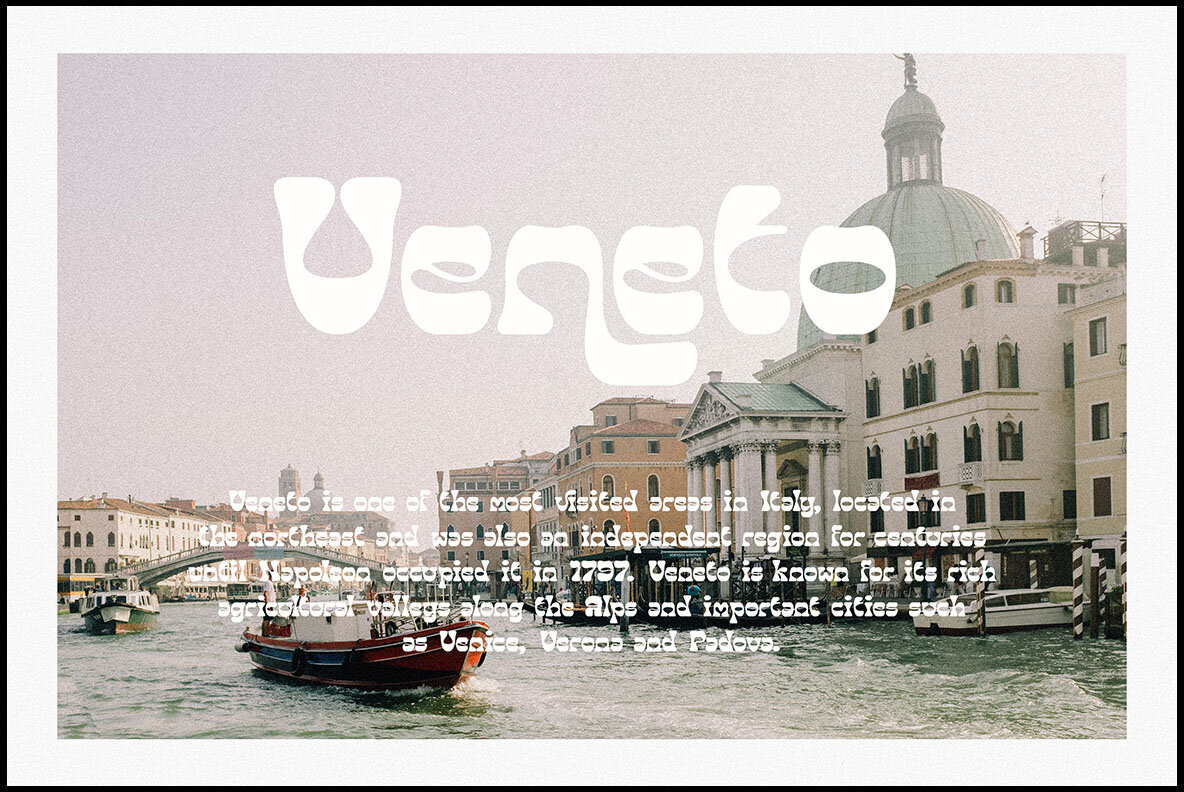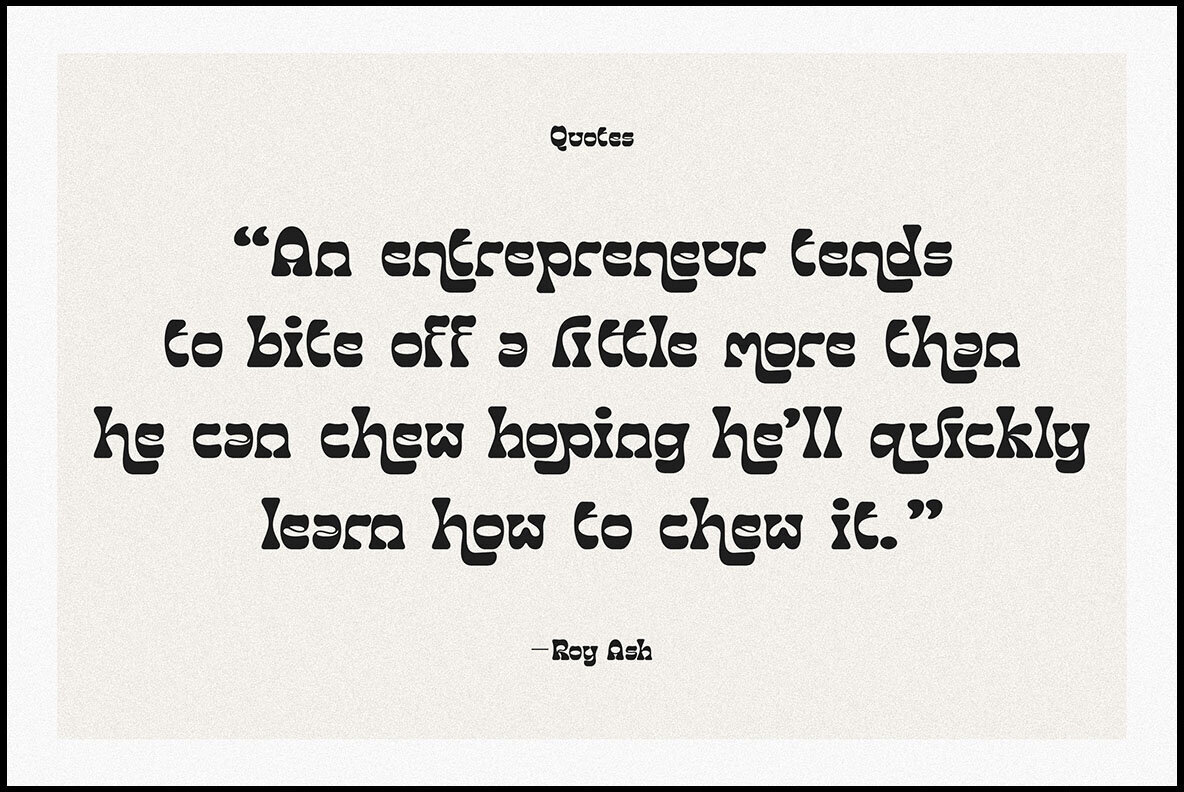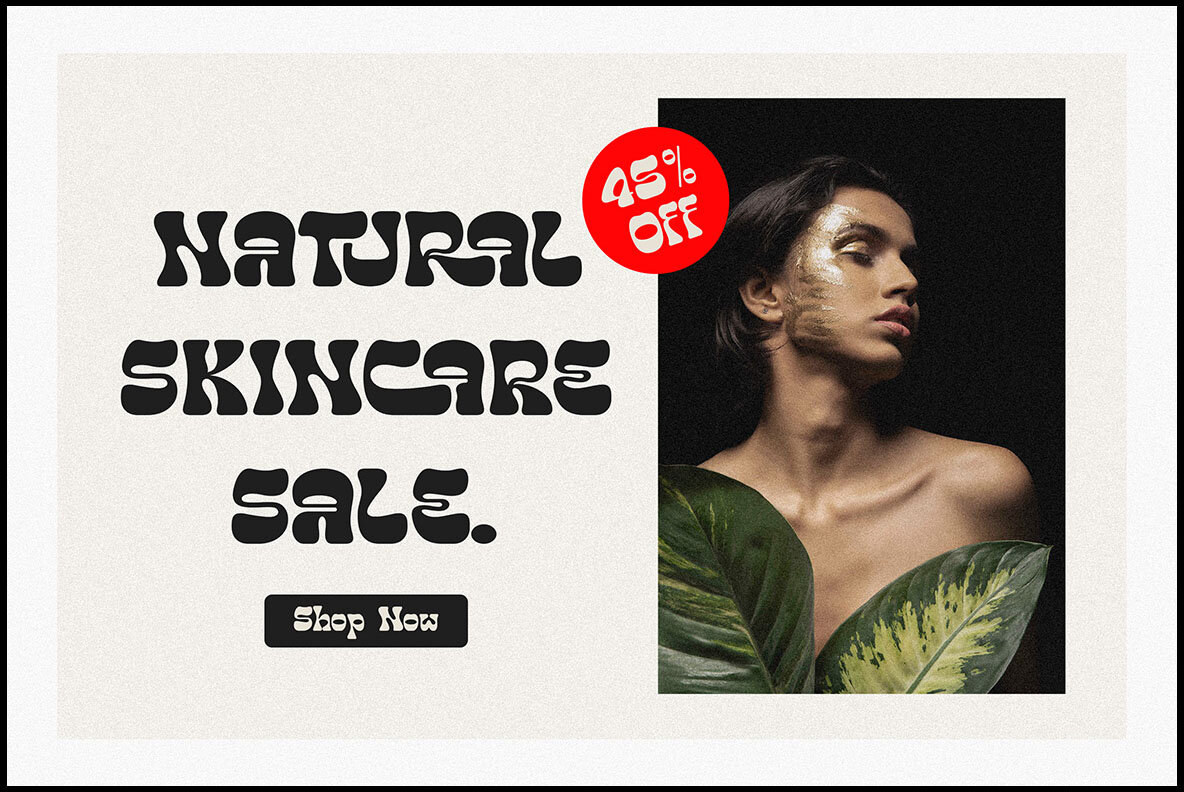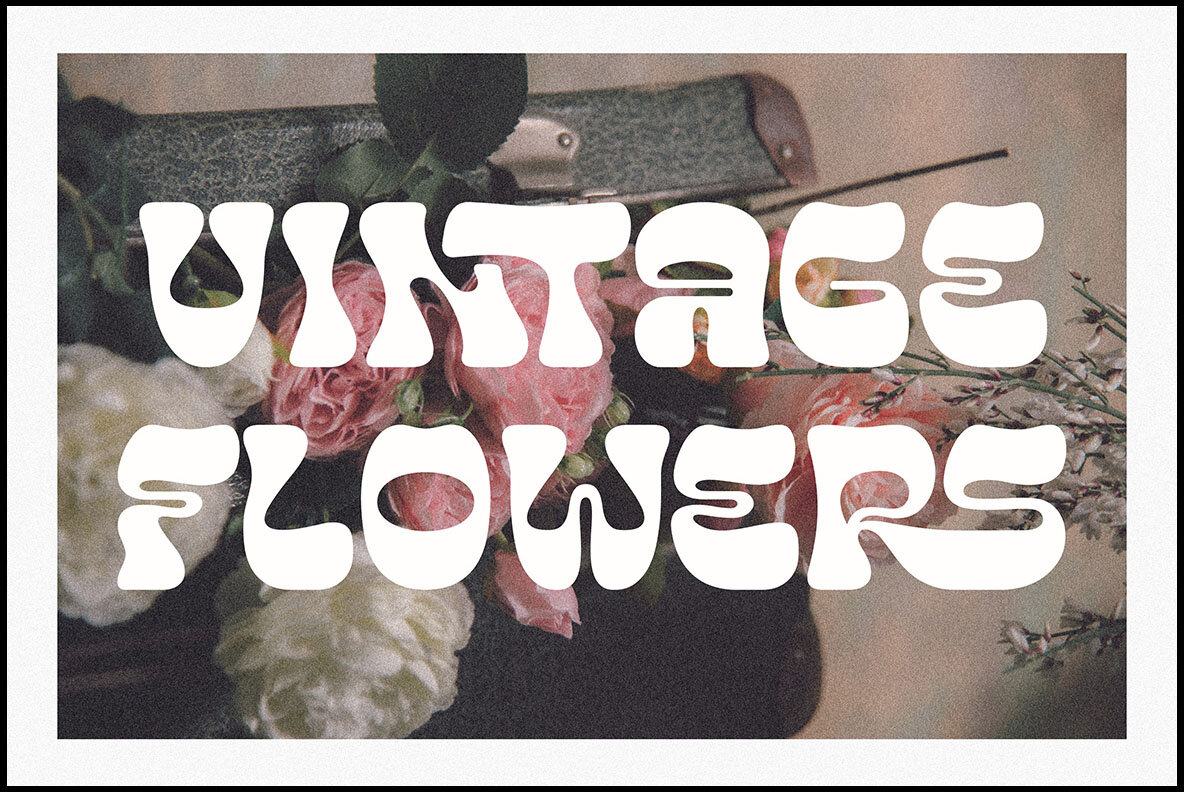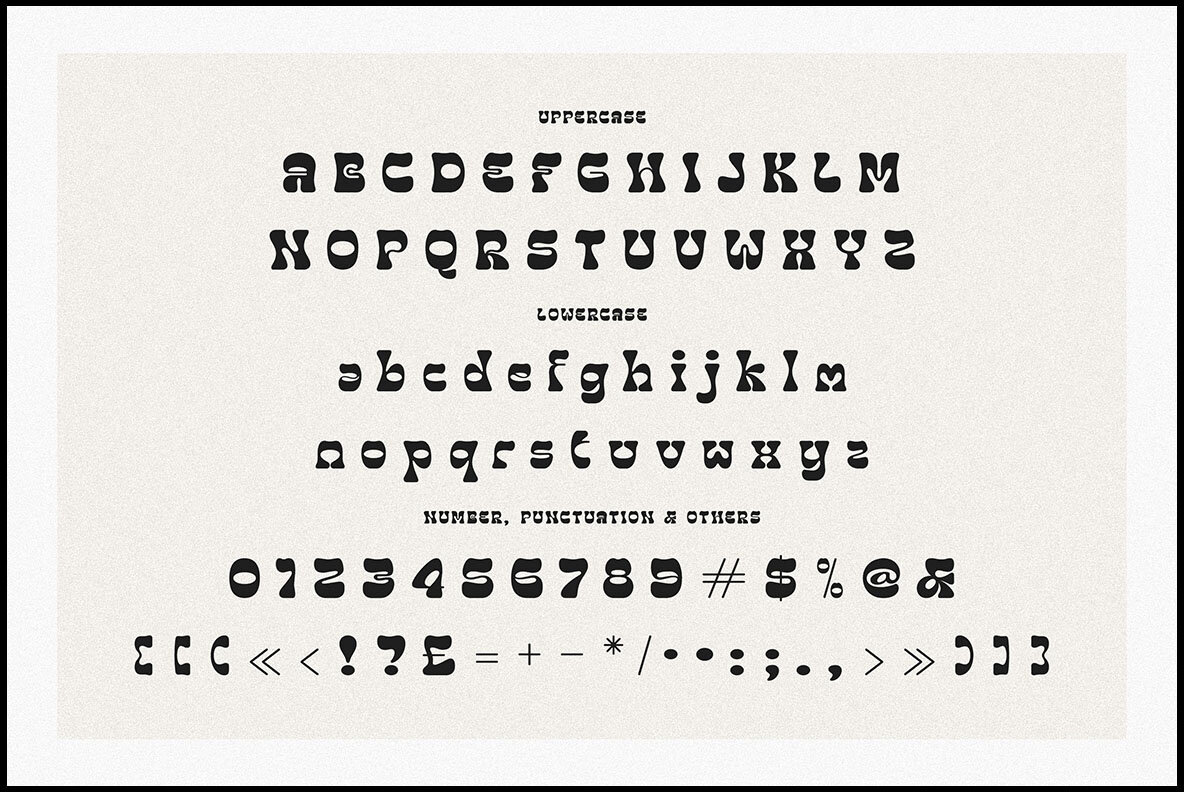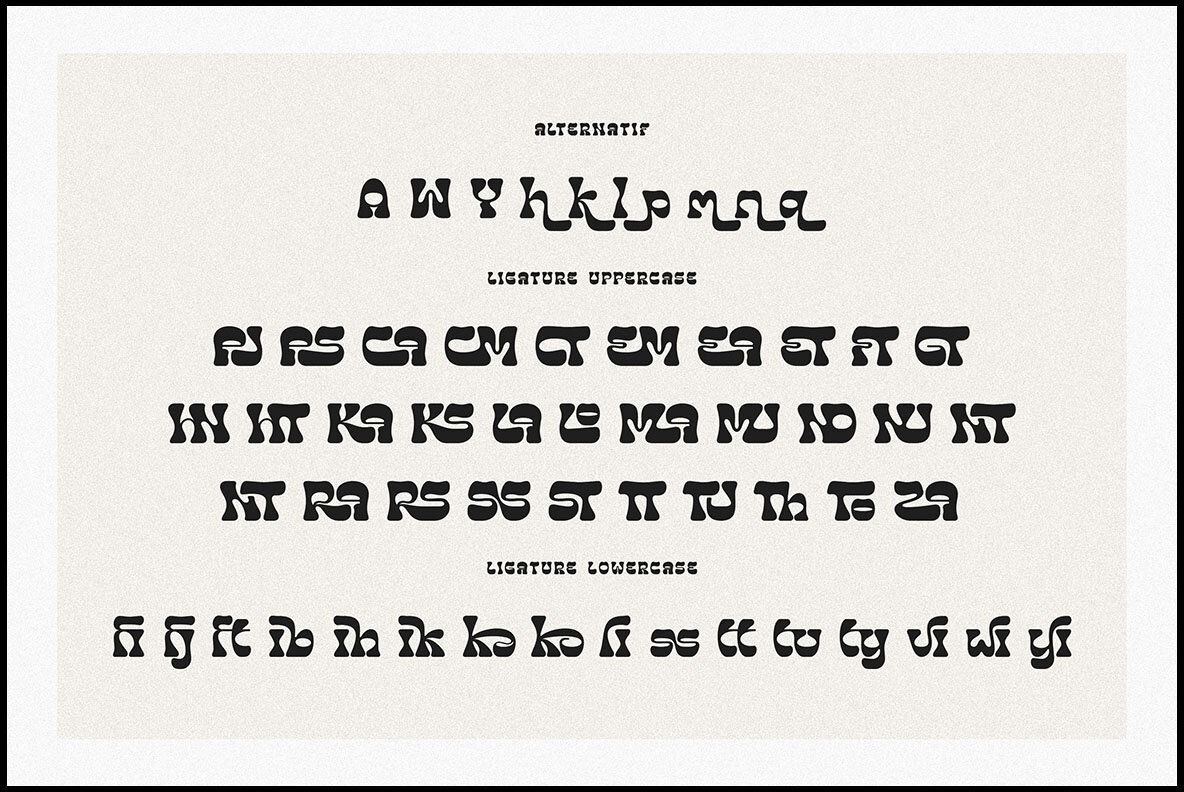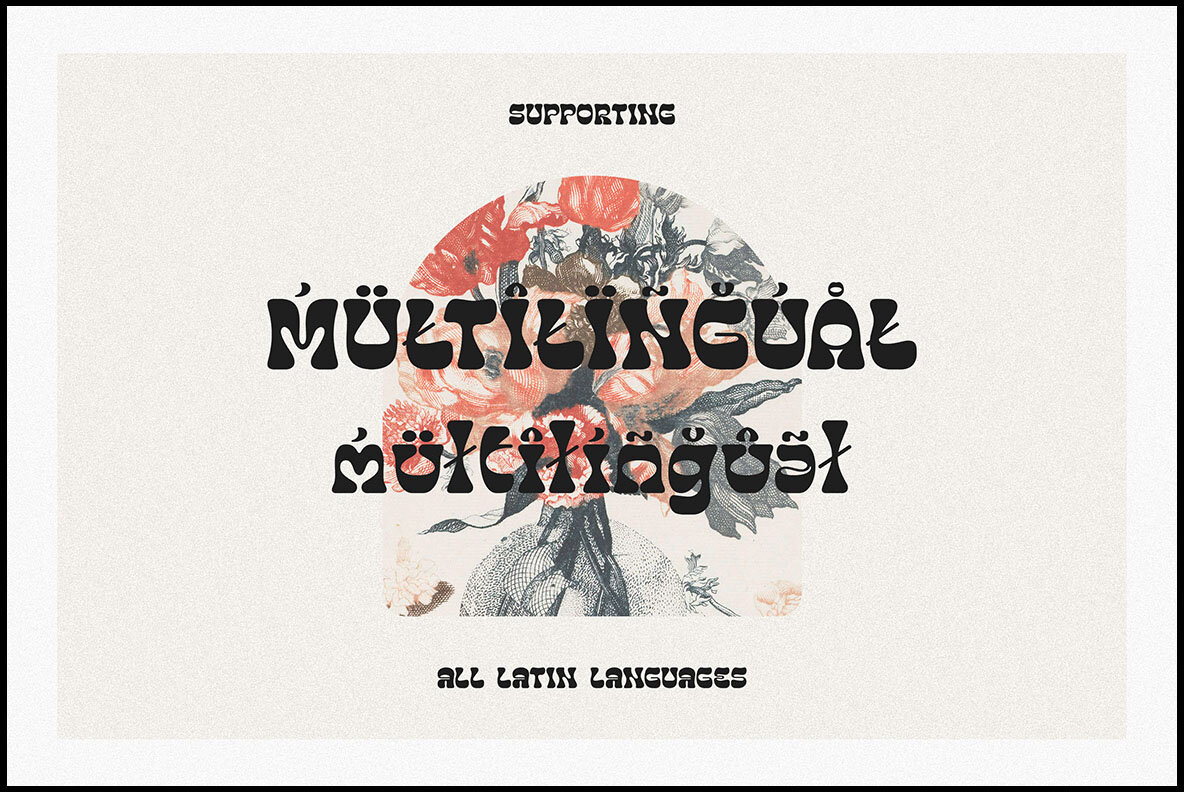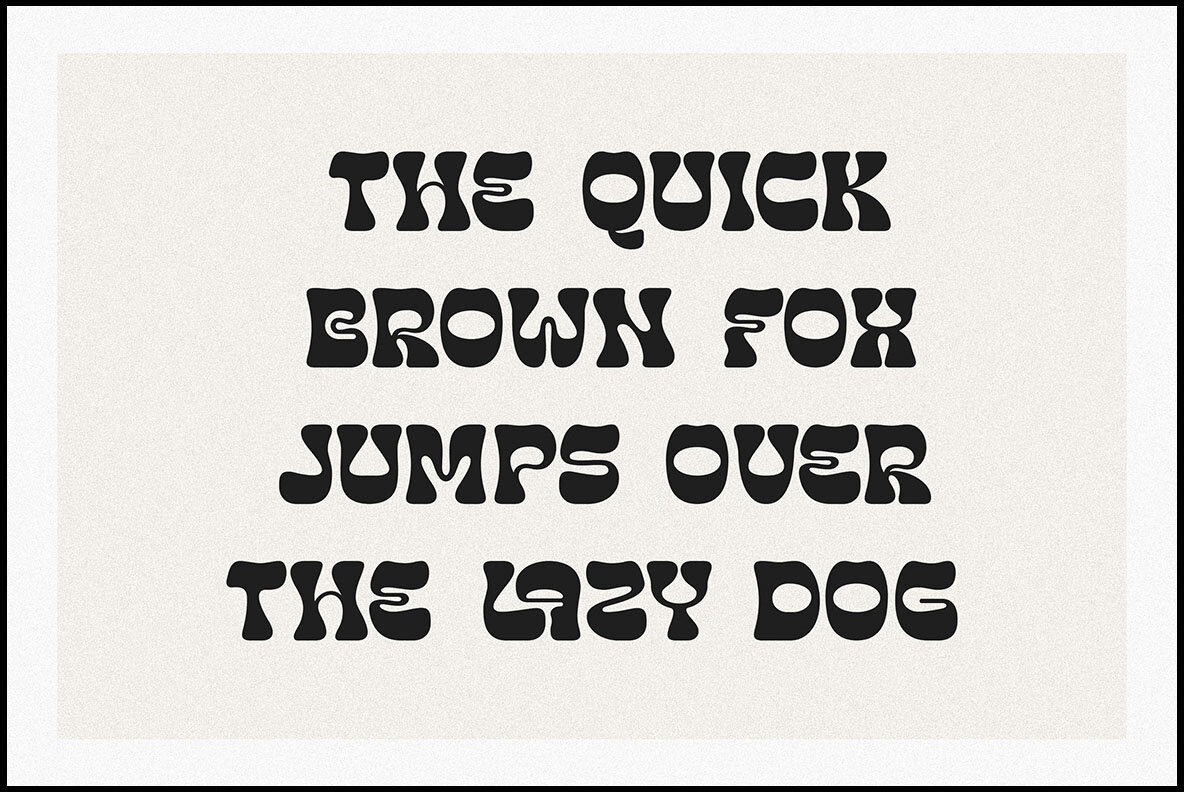
Drataslag Font
Drataslag
The Drataslag font by Peter Olexa combines trendy, groovy, artistic, and retro styles to enhance your modern projects. Its elegant, western, and funky elements make it an excellent choice for any branding endeavor, offering a unique touch to logo designs or website headers.Drataslag: Retro and Artistic Font for Modern Projects